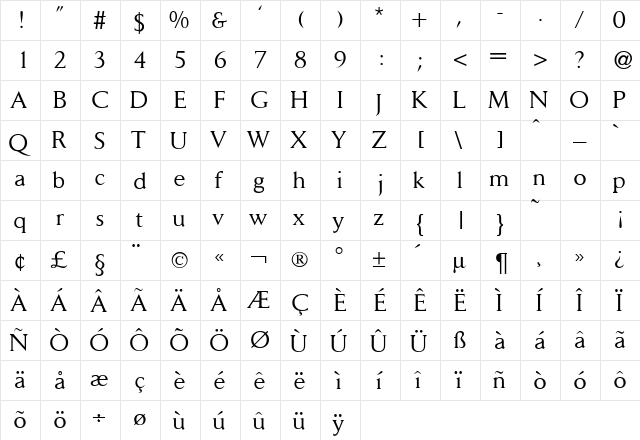
DaitonaDB Normal
Design Context for DaitonaDB Typeface
DaitonaDB is a composed and adaptable typeface that performs quietly and consistently across a wide range of design contexts.